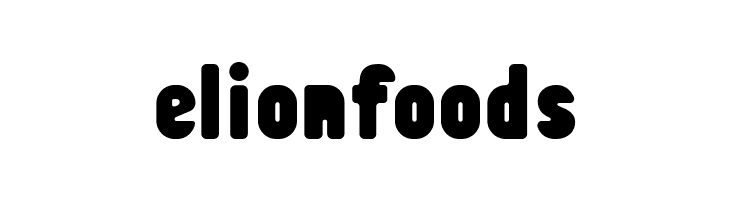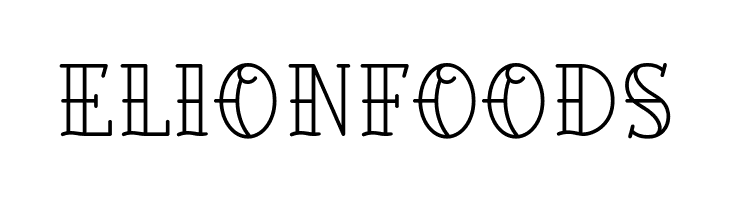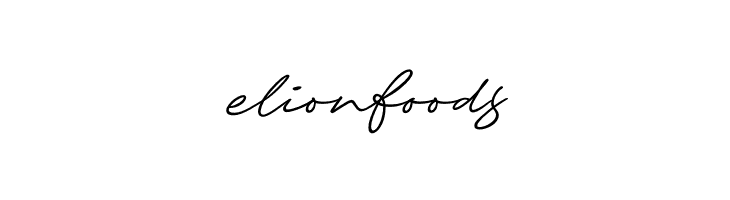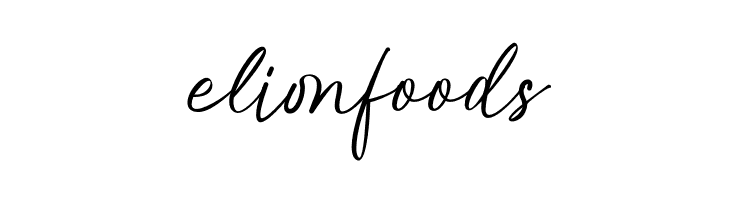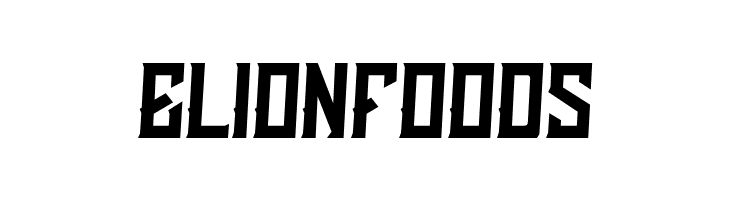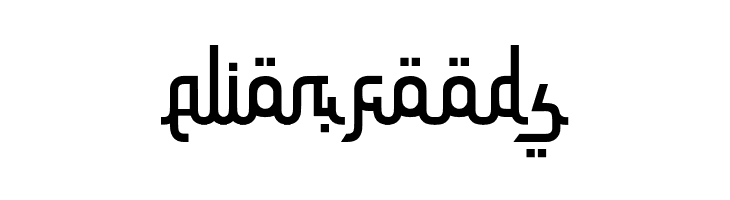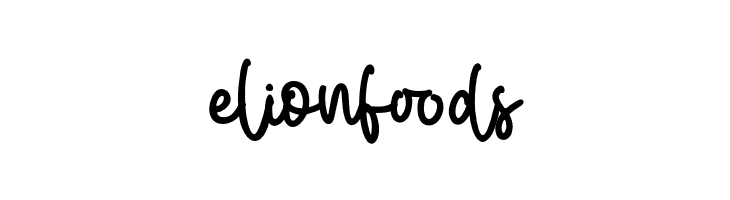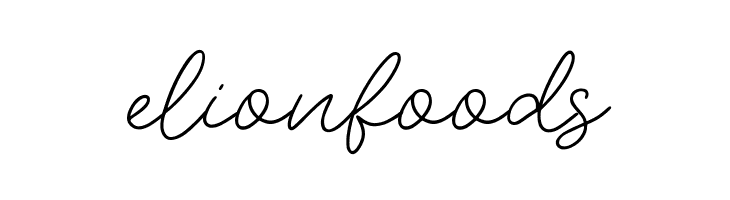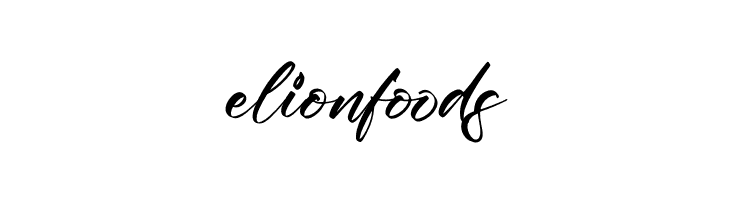
A casual, elegant handwritten font with fluid, connected strokes.
A cursive, handwritten-style font with elegant, flowing letters.
Elegant cursive script with a handwritten style.
A bold, playful font with rounded edges and a chunky design.
A decorative font with geometric shapes and intricate detailing, perfect for fantasy themes.
A bold, playful font with dynamic, uneven strokes and a whimsical style.
A bold, angular font with a geometric and aggressive style.
A lively and flowing script font with smooth, cursive strokes.
Elegant handwritten script font.